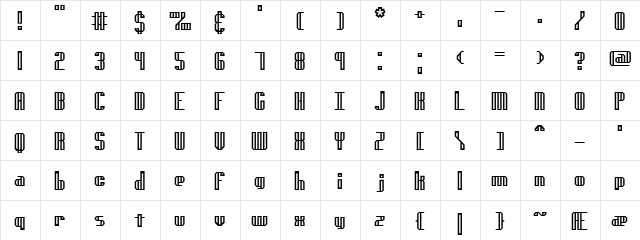
genotype H BRK Normal
Design Context for genotype H BRK Typeface
genotype H BRK offers clean, dependable letterforms without strong stylistic allegiance, making it a practical choice for designers who need flexibility.
Pro Tip: Use genotype H BRK in both headline and body roles to test its range before committing to a single application.